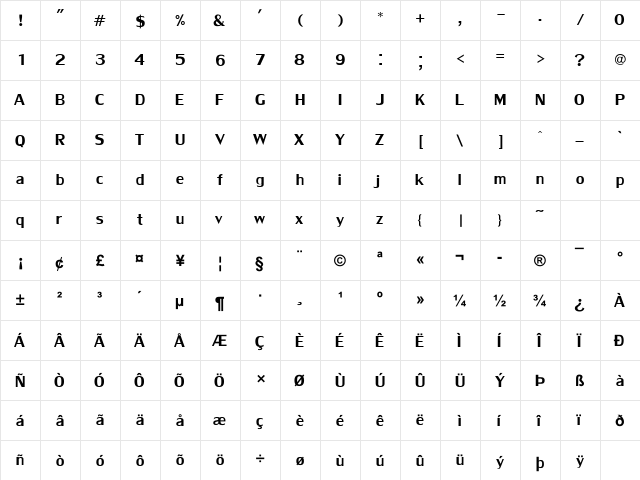
LilyUPC Regular Font Preview
LilyUPC Regular
LilyUPC Regular Font Details
Design Context for LilyUPC Typeface
LilyUPC offers clean, dependable letterforms without strong stylistic allegiance, making it a practical choice for designers who need flexibility.
Pro Tip: Pair LilyUPC with a font of contrasting weight or personality to build a more expressive typographic hierarchy.